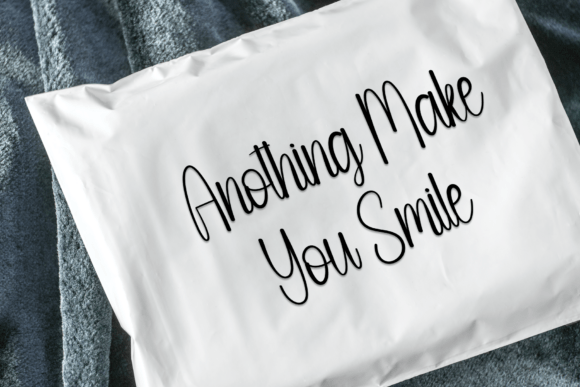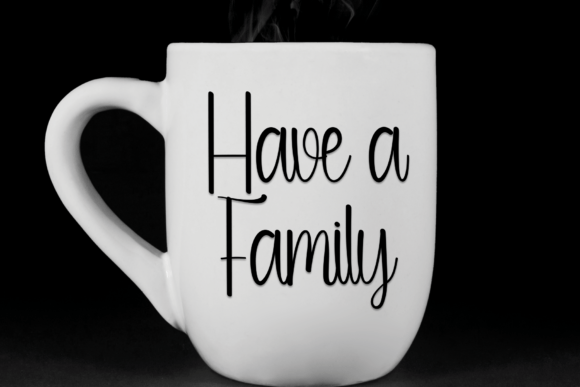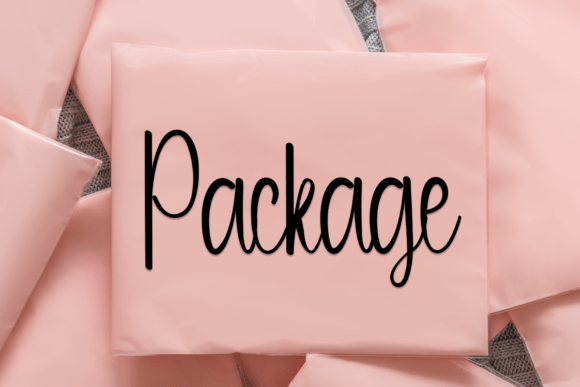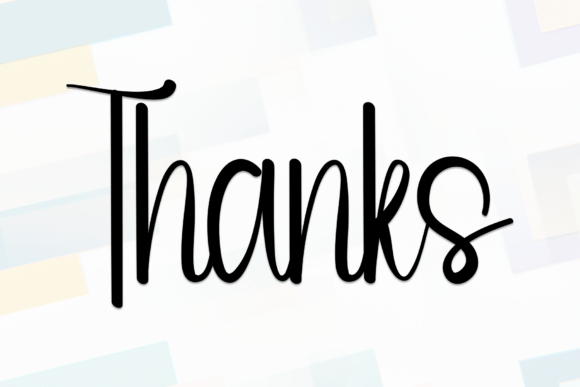
Introduction to Good Newyear Font
As the clock strikes midnight on New Year’s Eve, you’re surrounded by friends, family, and the promise of a fresh start. But for designers, the excitement doesn’t end there. You’re already thinking about the creative projects you want to tackle in the coming year. And that’s where the right design resources come in – like the Good Newyear Font.
This beautiful handwritten font is more than just a pretty face; it’s a valuable addition to any designer’s toolkit. With its unique, dancing characters that add a playful touch to any design, the Good Newyear Font is sure to elevate your creative project and make it stand out from the crowd. Whether you’re working on a marketing campaign, a blog post, or a social media graphic, this high-quality font is the perfect way to add some personality and whimsy to your design.
Key Features of Good Newyear Font
- High-quality design resource ideal for creative projects and events.
- Features a transparent background, making it easy to layer over other design elements.
- Comes in a range of sizes, from 12pt to 72pt, allowing for flexibility in typography and layout.
- Designed at a high resolution of 300 DPI for crisp and clear text display.
- Unique, modern aesthetic that adds a touch of sophistication to any creative project.
Honest Review: Good Newyear Font
I recently stumbled upon the Good Newyear Font, and I must say it’s been a pleasant discovery. As a designer, I’m always on the lookout for high-quality design resources that can elevate my creative projects.
What works well: ✨ The font’s clean and modern design makes it perfect for creating visually appealing graphics and visuals. The transparent background option also allows for seamless integration into various design elements. Additionally, the free download option is a major plus, making it accessible to designers of all levels.
Here are some of the key features I appreciate:
- Transparent background option for flexibility
However, I do have a few reservations: ⚠️ The font could benefit from a few more weight options to provide more versatility. Additionally, some users may find the font’s modern style too minimalist for certain projects.
Overall, I’m impressed with the Good Newyear Font’s potential to enhance my designs. With a few tweaks to address the limitations, it could become a go-to font for many designers.
The Good Newyear Font is perfect for a wide range of creative projects, including:
- Party invitations and decorations
- New year’s resolutions and goal-setting graphics
- Business presentations and reports
Alternatives to Good Newyear Font